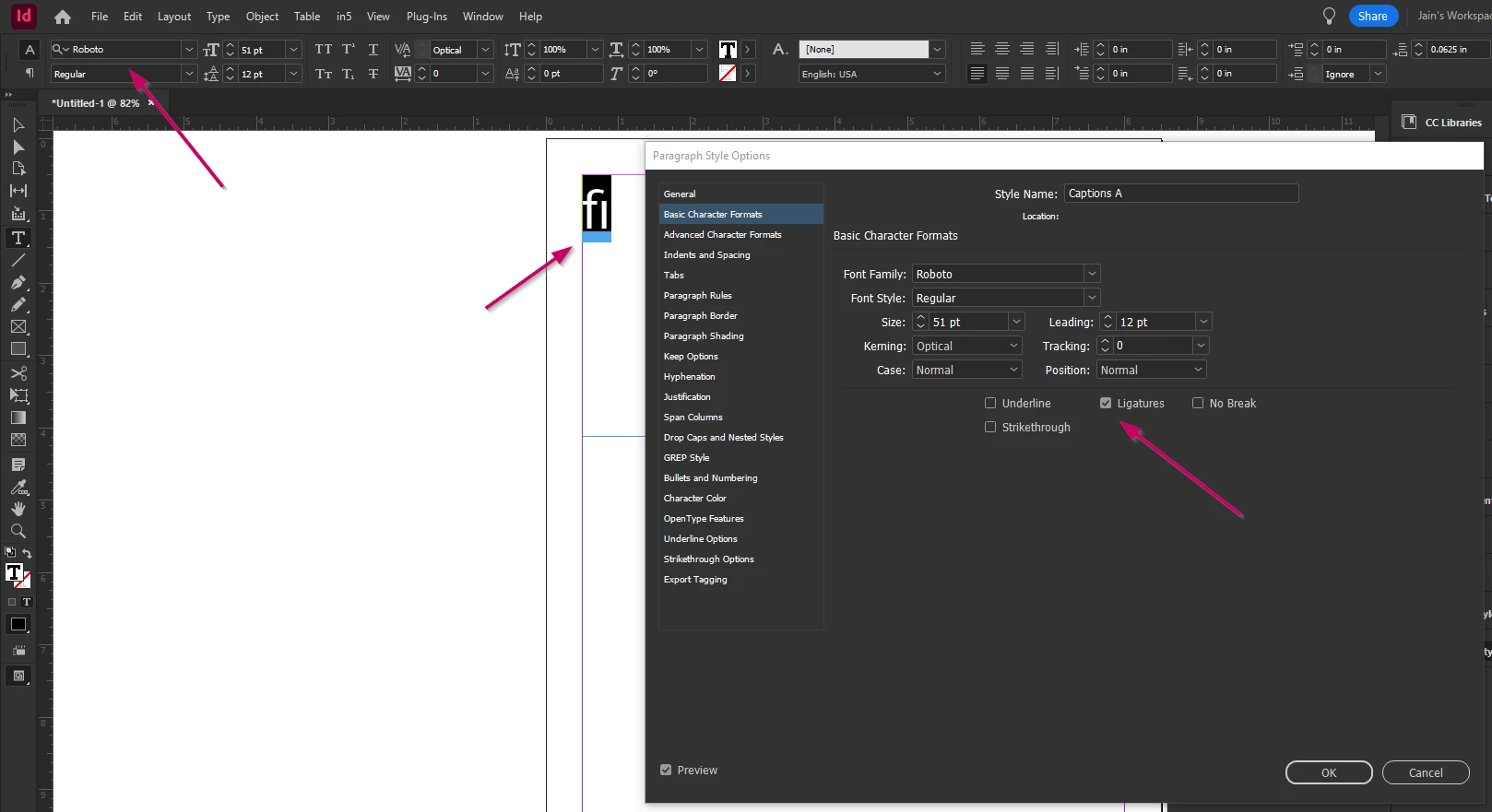
Bug on Roboto fonts
We have notice small bug in Adobe with Roboto font family, whenever the sequence ‘fi’ is typed the dot on ‘i’ is disappears (screenshot below), We have check with multiple users and most of users has same issue, Could you please let us know what is the solution for this, Thanks
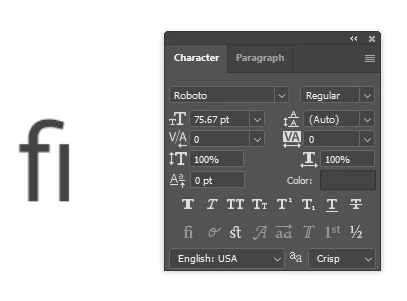
@Abhijit31927392hjiw, thanks for pointing this out. It's because “Ligatures” are checked in the Character properties panel or format options. If you uncheck it, the dot over the i returns. Hope that's helpful!
It's a somewhat common feature for ligatures like "fi" and "ffi" to consume the dot of the lowercase "i". It just depends on the typeface. The "fi" and "ffi" ligatures in Myriad and Minion do that. Minion also eats the dot in its "fj" and ffj" ligatures.